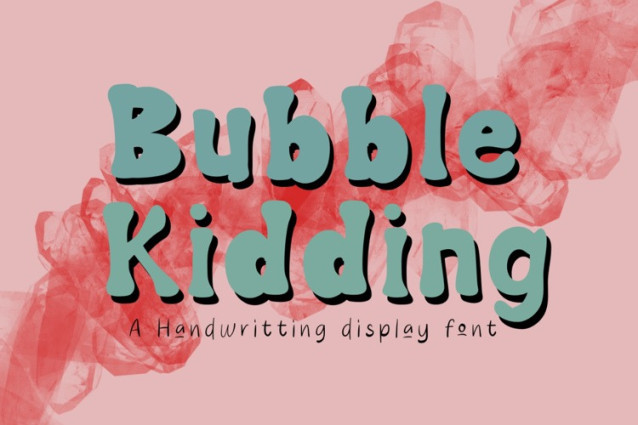
Bubble Kidding Font
Bubble Kidding Font is a chunky, comic, and cartoon display font. With its neat and joyful personality, this font will enhance any project you wish to create!